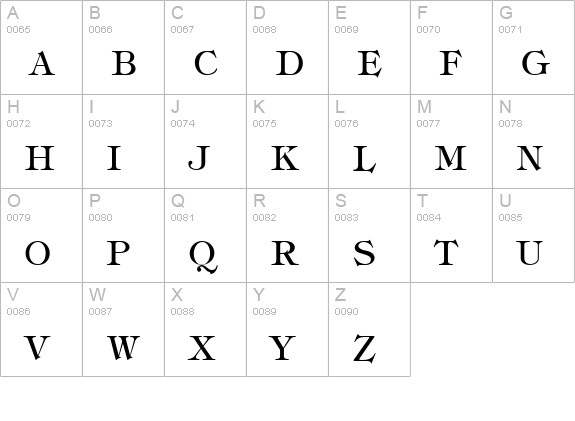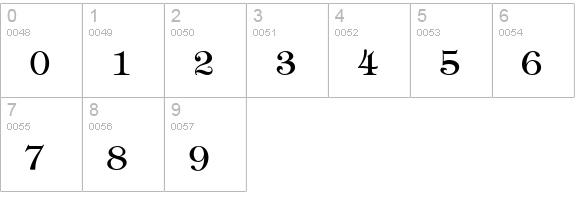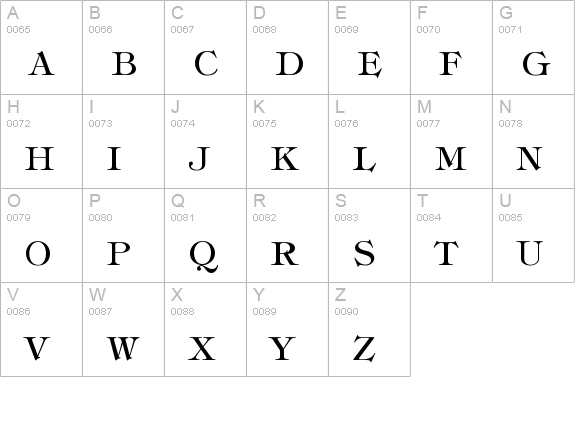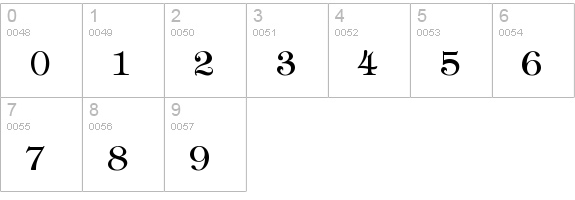
Sophisticate Light SSi Light is a refined, elegant variant in the Sophisticate typeface family \xE2\x80\x94 well suited to elegant body text, refined sub-headings, and luxury branding.
Sophisticate Light SSi Light font is a stunning display font that exudes elegance and sophistication. With its clean lines and delicate curves, this font is perfect for adding a touch of class to any design project. The light weight of this font gives it a delicate and refined look, making it ideal for use in invitations, wedding stationery, and high-end branding. Whether you're designing a luxury fashion magazine or creating a stylish logo for a boutique, Sophisticate Light SSi Light font will elevate your design to the next level. One of the best things about this font is that it is freely available to download at FontsMarket.com. This means that you can easily access and use this font for any personal or commercial project, without having to worry about any licensing restrictions. The versatility of Sophisticate Light SSi Light font is truly remarkable. Its legibility and timeless design make it suitable for a wide range of applications, from print to digital media. Whether you're designing a website, a poster, or a brochure, this font will add a touch of sophistication to your project. So, if you're looking for a font that combines elegance, versatility, and a touch of luxury, look no further than Sophisticate Light SSi Light font. Download it for free at FontsMarket.com and let your creativity shine.